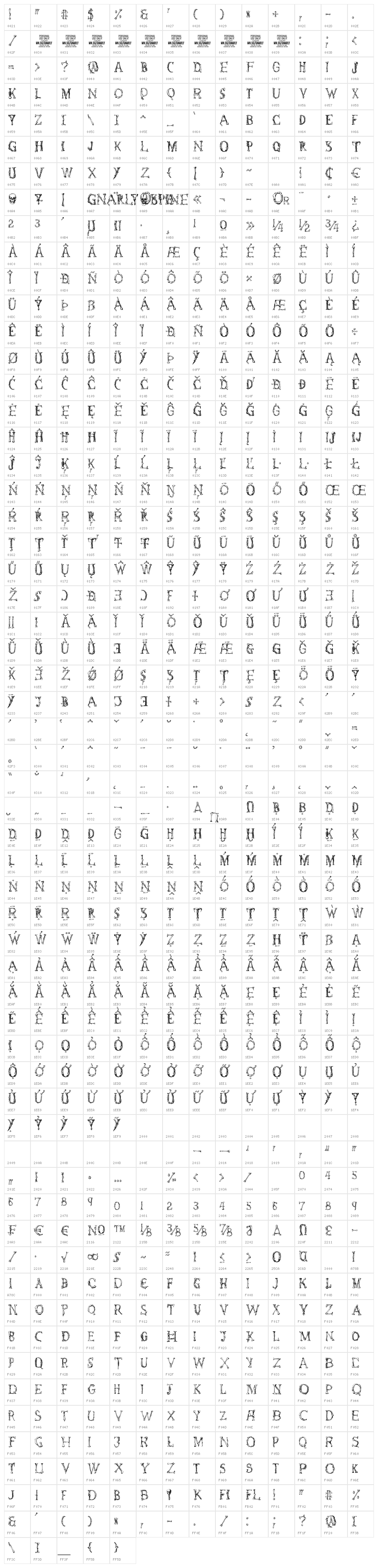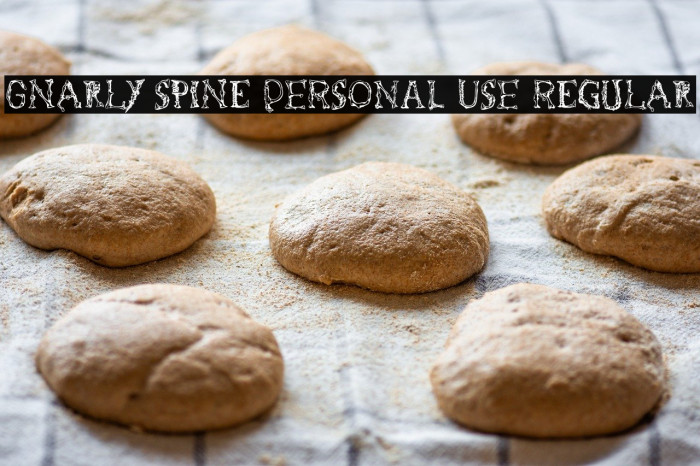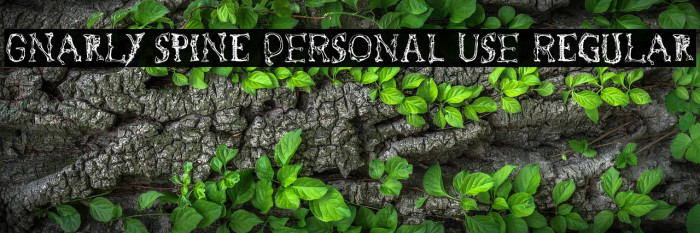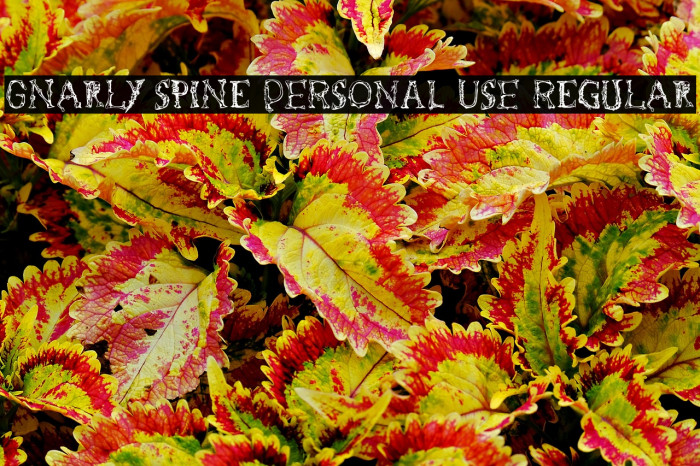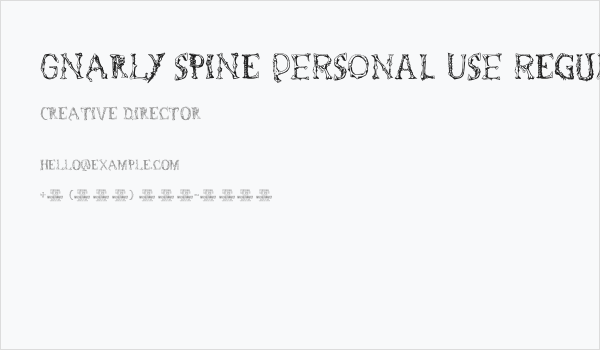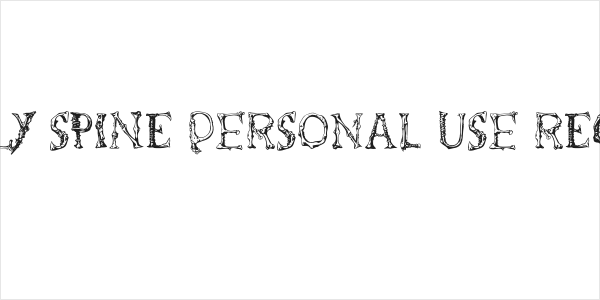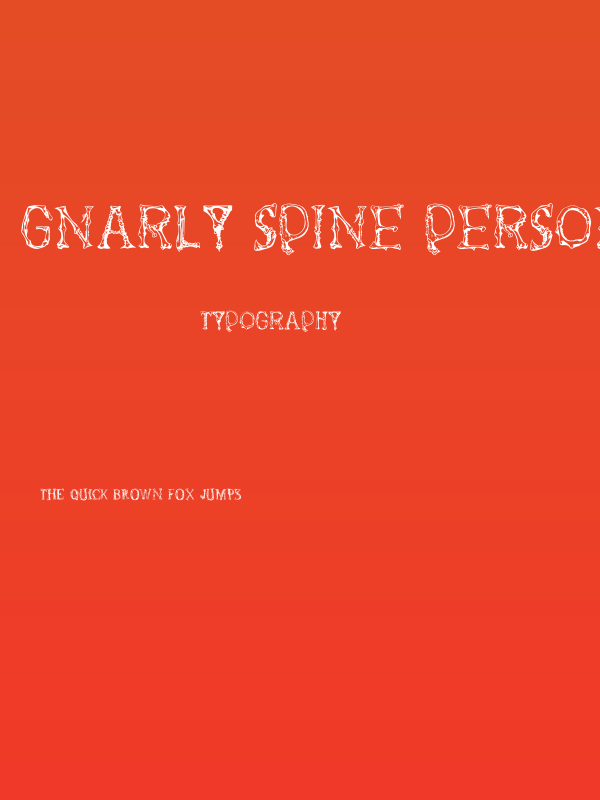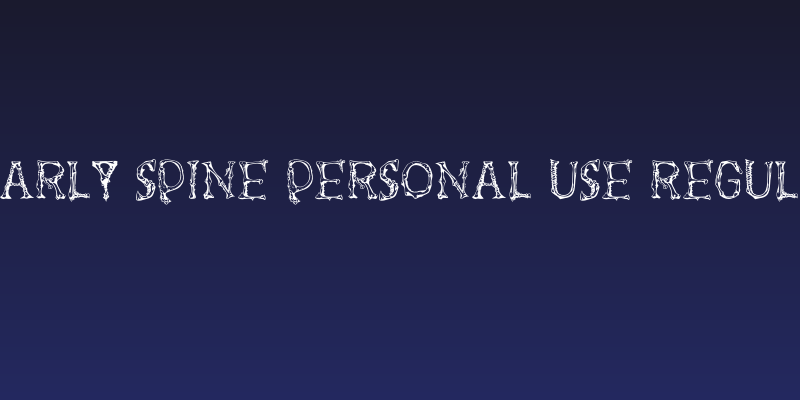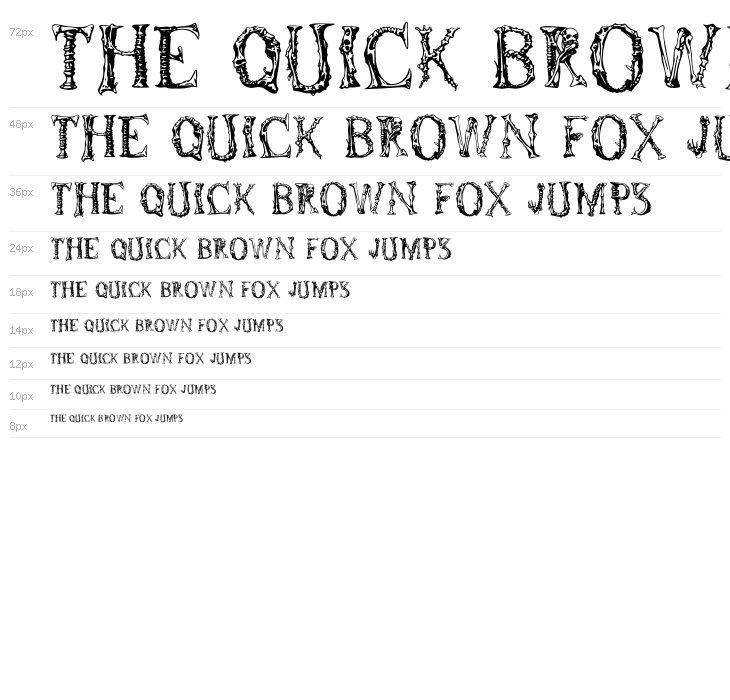
Gnarly Spine PERSONAL USE Regular Font
Gnarly Spine PERSONAL USE Regular Description
This font features a highly decorative and intricate design, reminiscent of twisted and gnarled organic forms. Each character appears to be crafted with a spine-like structure, giving it a unique and edgy appearance. The letters are bold and have a hand-drawn quality, with varying thicknesses that add to the chaotic and wild aesthetic. The overall look is both artistic and slightly unsettling, making it perfect for projects that require a bold statement. The font's irregular shapes and detailed textures make it stand out, ensuring it captures attention.
| Proposed Projects | Ideal for horror-themed designs, Halloween posters, edgy album covers, or any project needing a dramatic and artistic flair. |